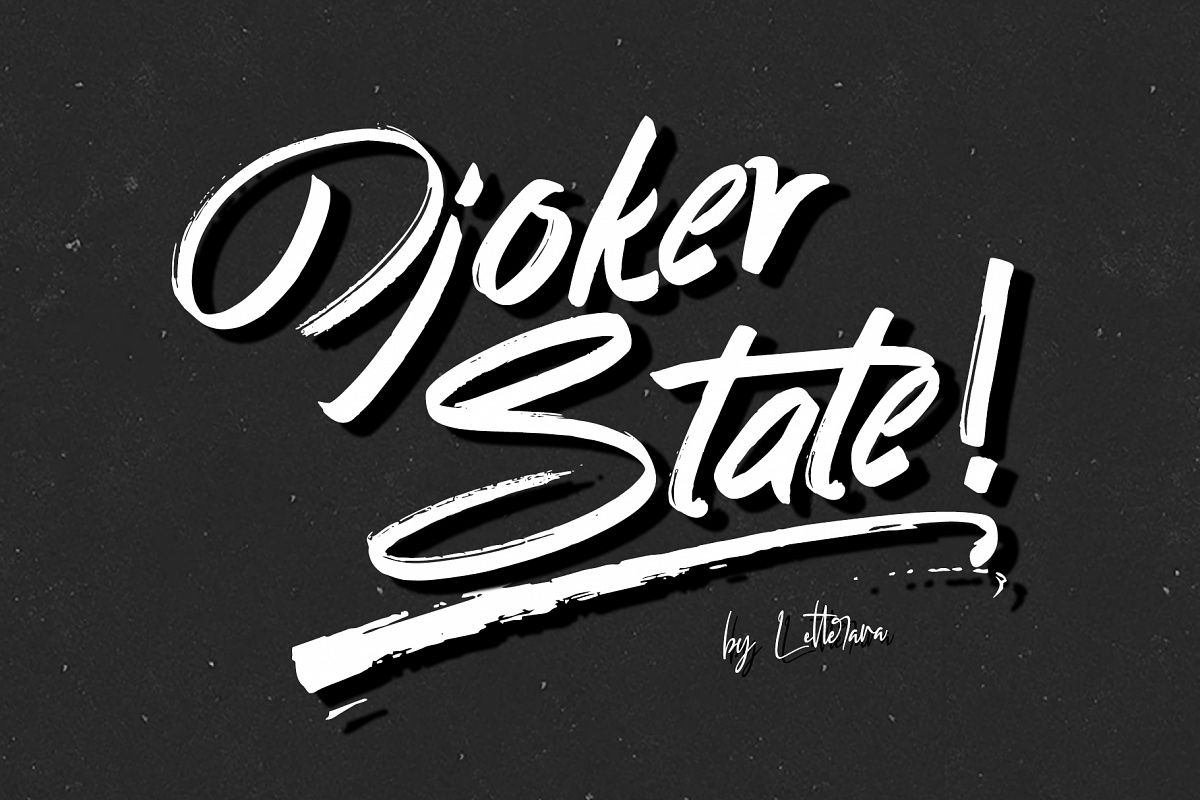
Djoker State is a cool typeface which can
be used for various purposes such as: quotte, advertising, headings, logos,
badges, posters, book covers, news papers and much more!